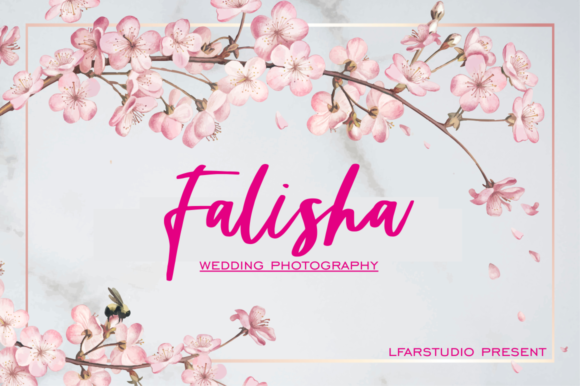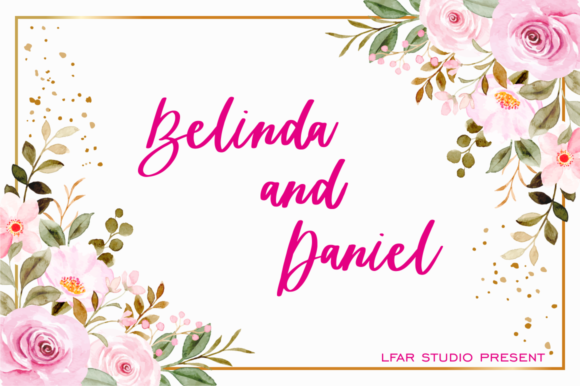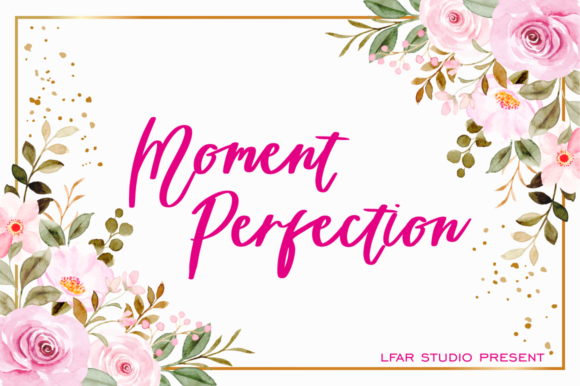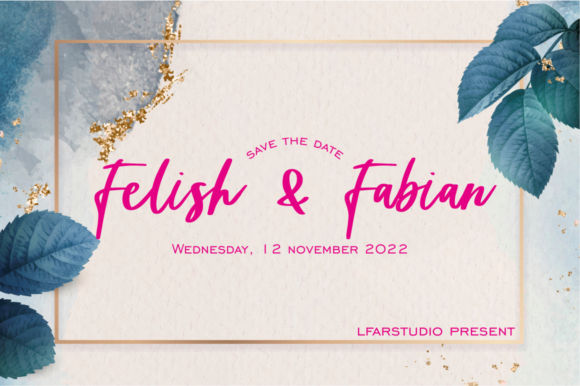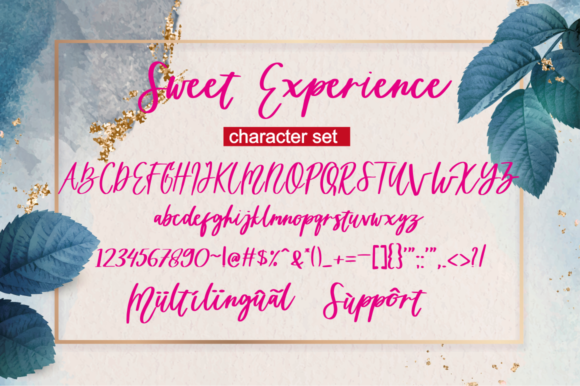
About Sweet Experience Font
Sweet Experience is a lovely handwritten font. it will add a romantic impression to any design project that you wish to create! This font is PUA which means you can access all of beautiful glyphs and ligatures with ease!